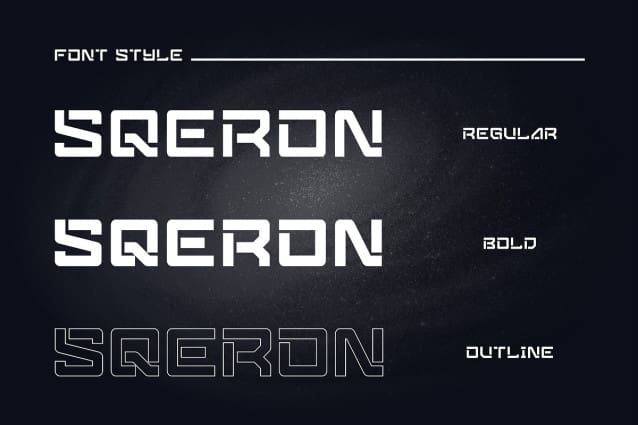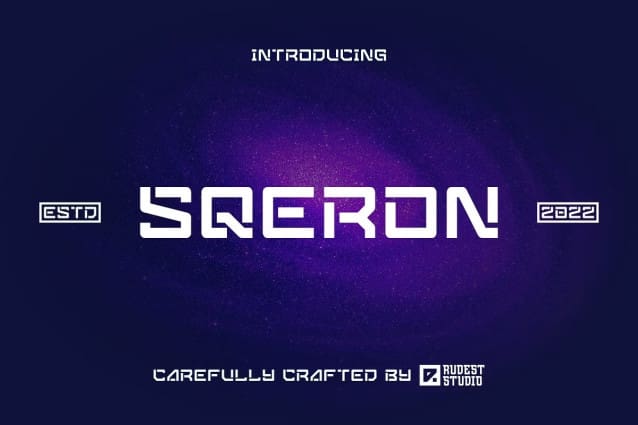
Sqeron Font
Sqeron Font is a futuristic font inspired by science fiction movies and books. Minimalistic is the main style for this typeface also outline style give more modern and elegant look. This font is suitable for various purpose such as movies, posters, logos, labels, and any modern purposes.